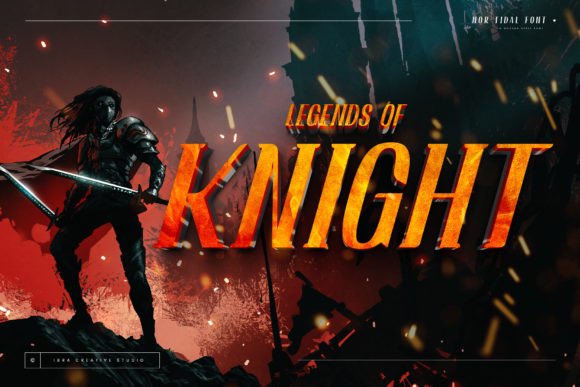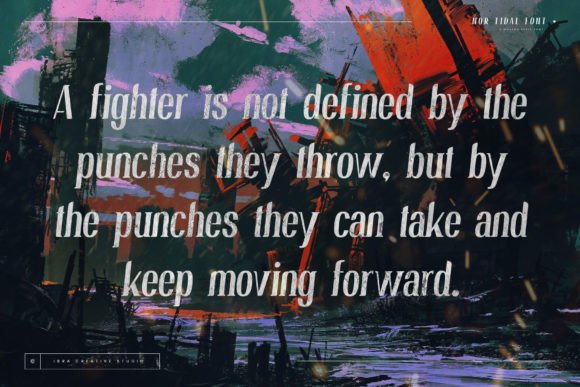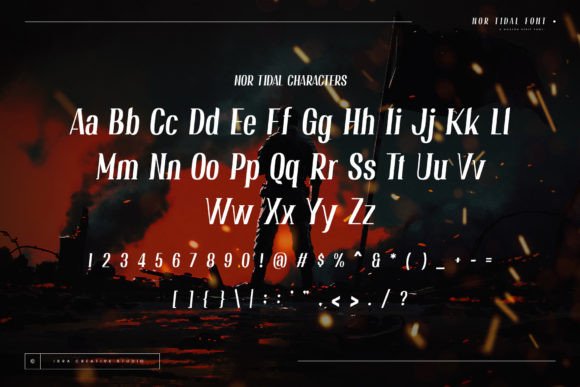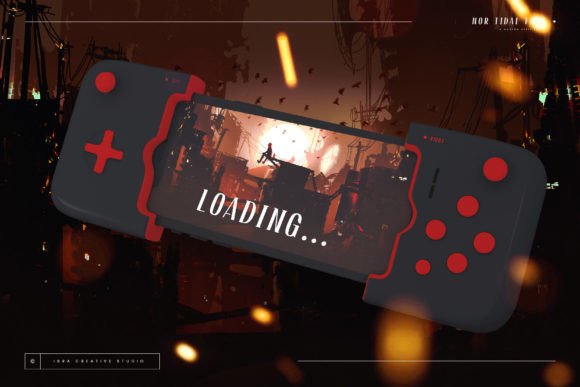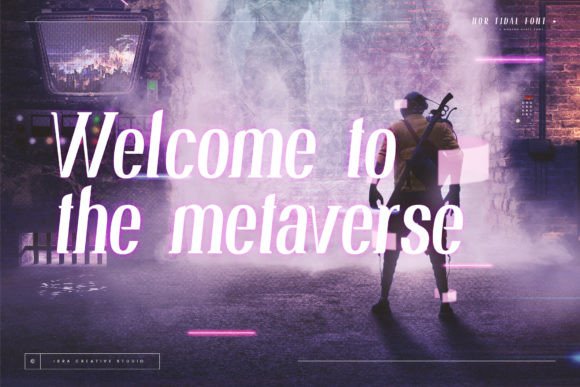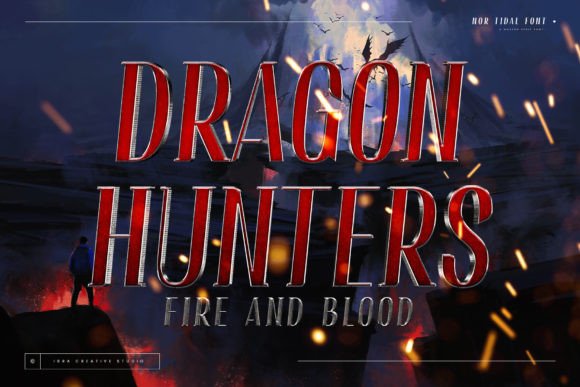
Introduction to Nor Tidal Font
Nor Tidal is a contemporary serif font that seamlessly merges timeless elegance with a sleek, modern aesthetic.
Designed to exude sophistication and readability, Nor Tidal strikes a perfect balance between tradition and innovation Its well-defined serifs lend a touch of classic refinement, while subtle tweaks and clean lines bring a distinctly contemporary flair.
Key Features of Nor Tidal Font
Why Choose Nor Tidal Font?